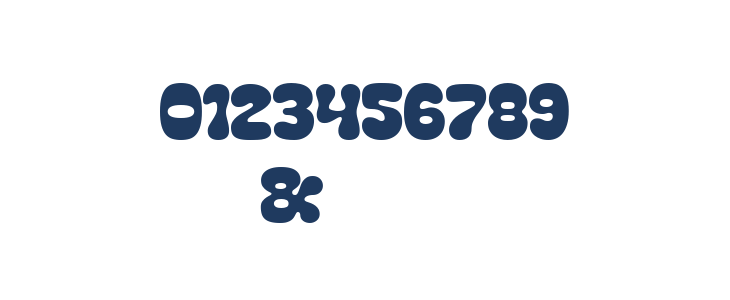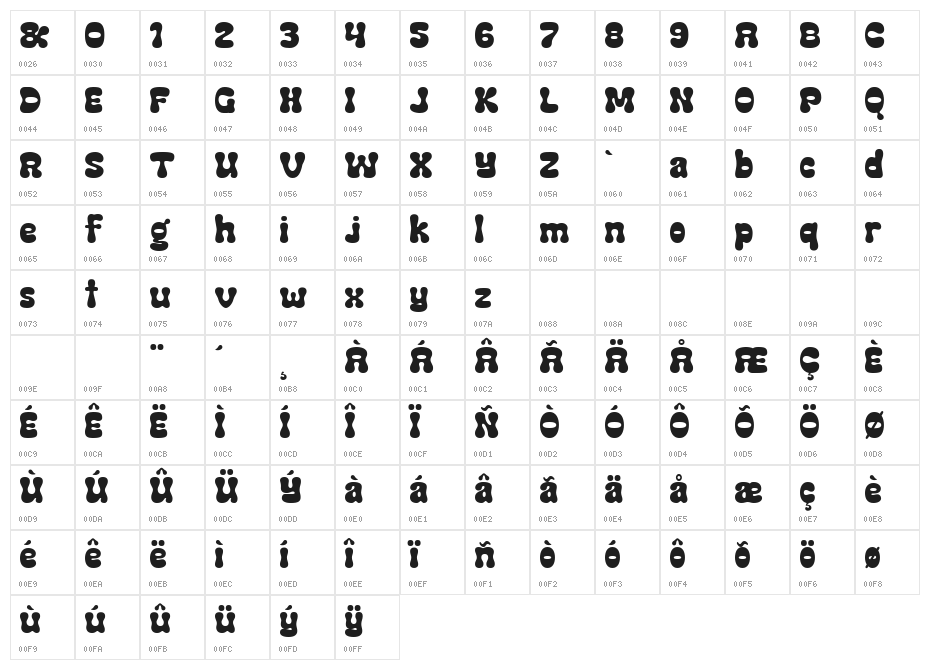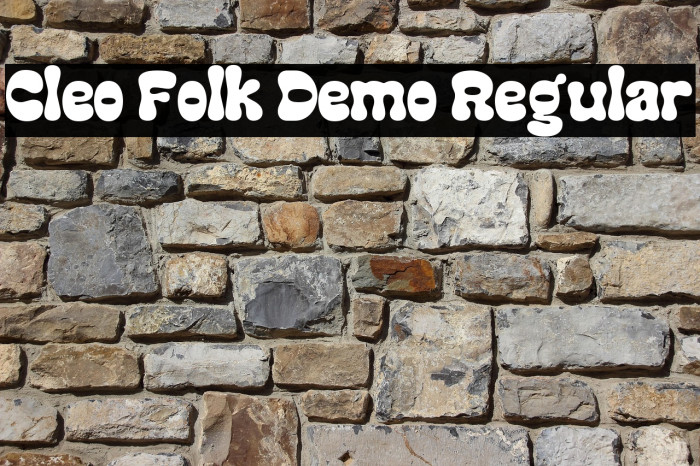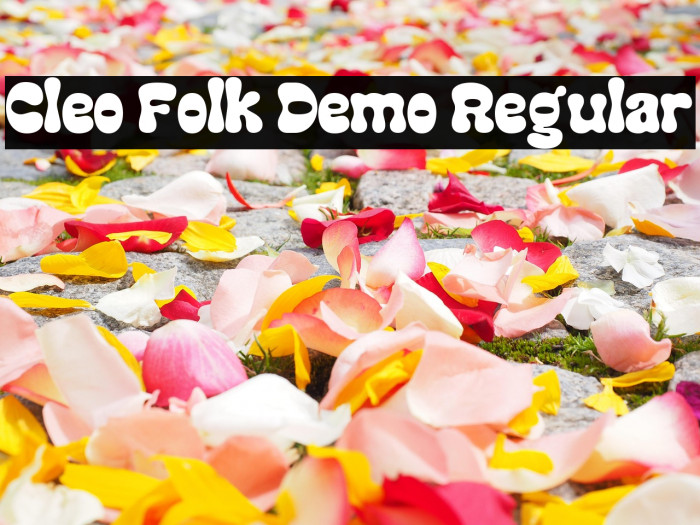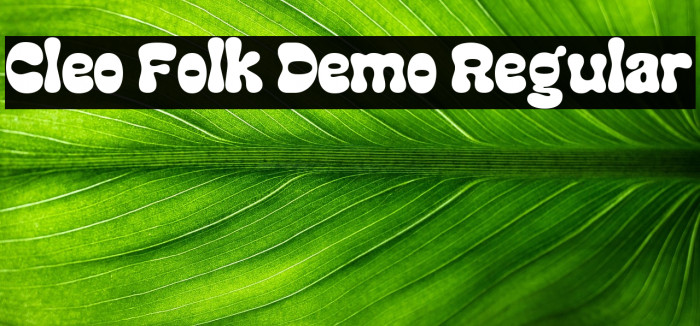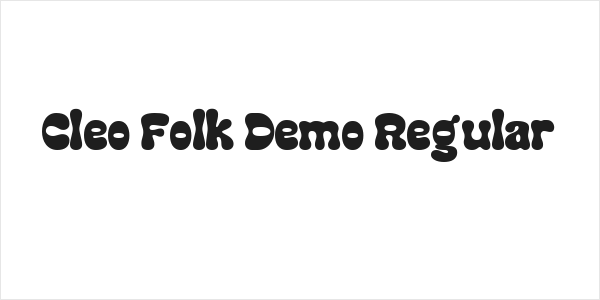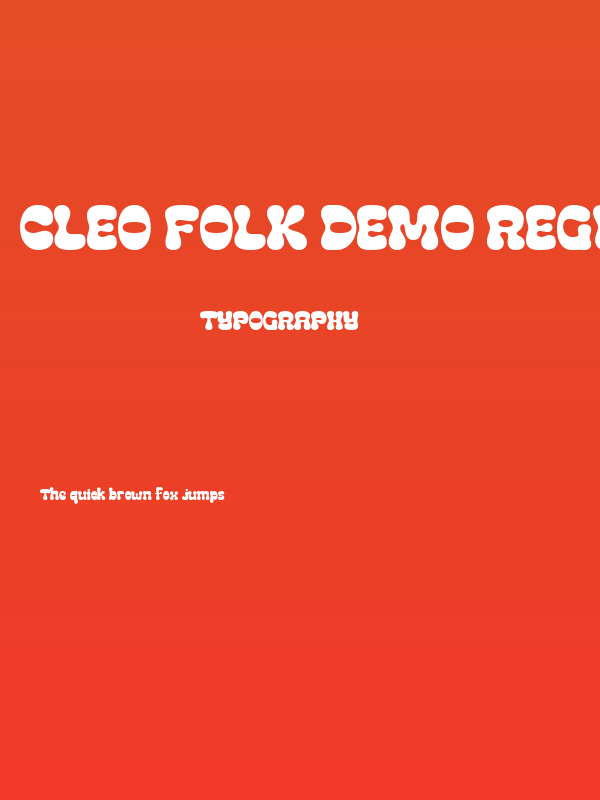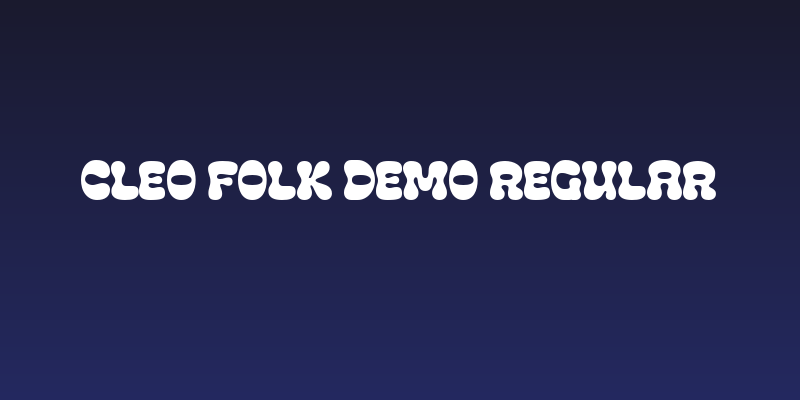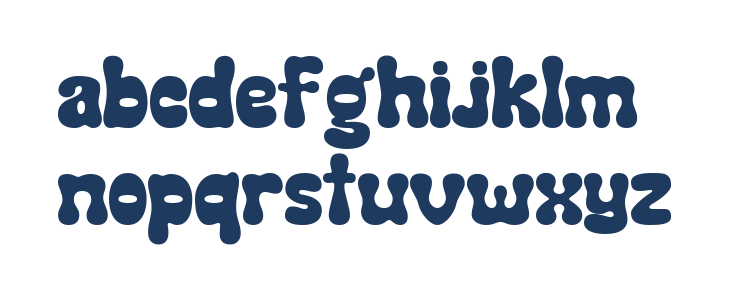
Cleo Folk Demo Regular Font
Cleo Folk Demo Regular Description
This font features a bold and playful design with rounded, bubble-like characters that create a sense of whimsy and fun. The letters are thick and have a uniform stroke width, giving them a strong presence on the page. The overall style is reminiscent of retro or vintage designs, making it suitable for projects that aim to capture a nostalgic or quirky aesthetic. The characters are closely spaced, enhancing the boldness and impact of the text. This font is particularly eye-catching and is likely to stand out in any design.
| Proposed Projects | Ideal for children's book covers, playful branding, retro-themed posters, and eye-catching headlines. |